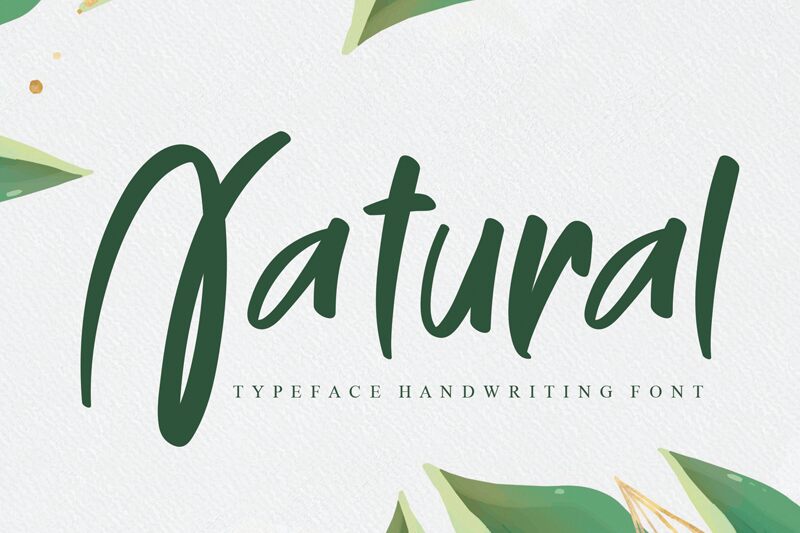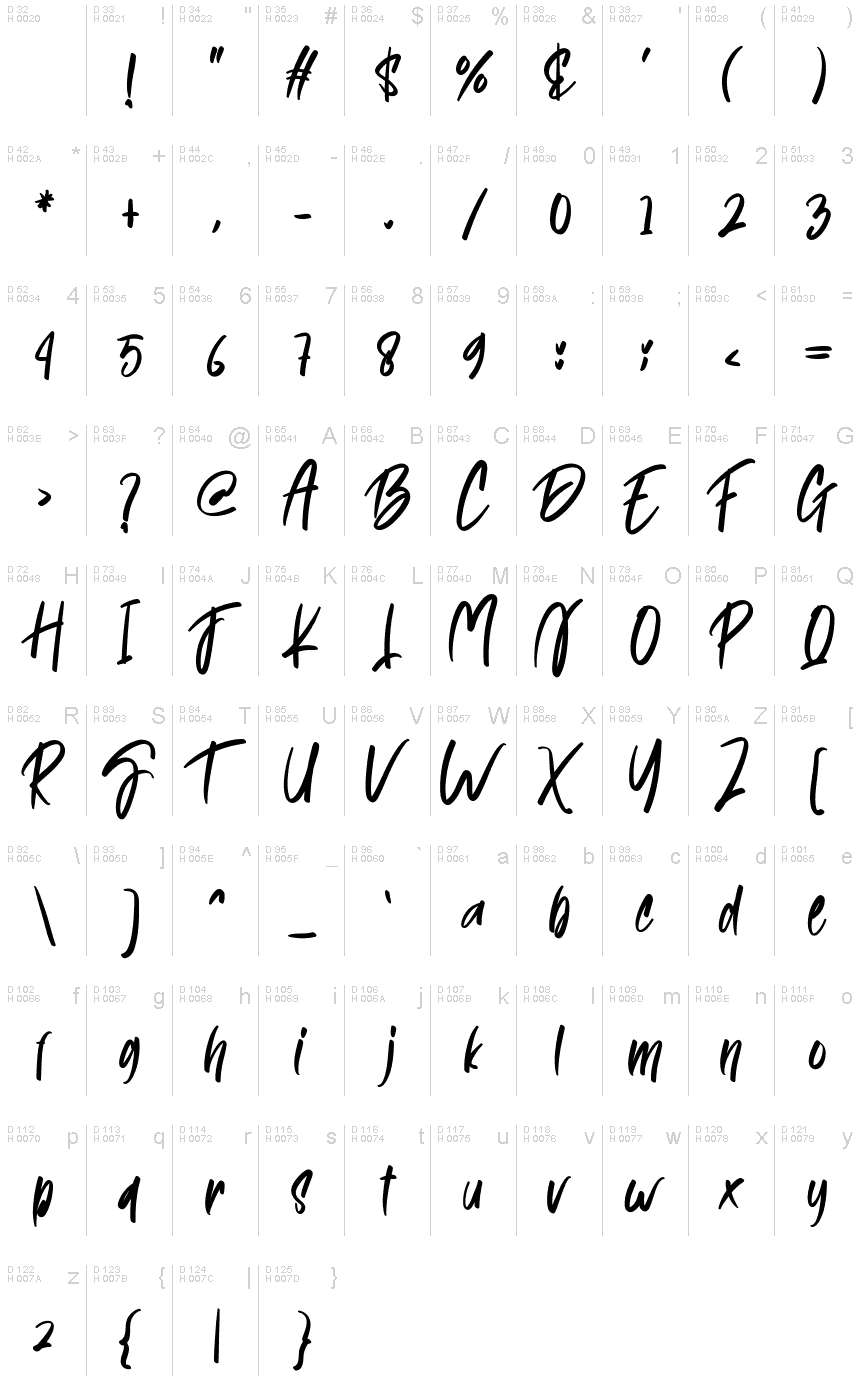
Natural
Natural font is a casual handwritten font designed by Gado Gado.
the latest style letters are perfect for wall displays, wedding invitations, social media post logos,
advertisements, product packaging, product designs, labels, photography, watermarks, invitations, stationery,
and any project that requires taste handwriting.